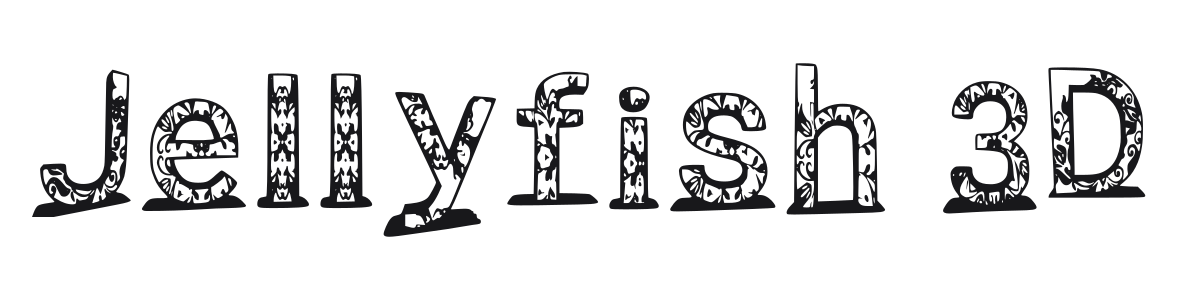
Jellyfish 3D
Jellyfish 3D is a chunky, heavily decorated display font where every letter is filled with swirling organic patterns reminiscent of jellyfish tentacles and sea life. A bold 3D drop-shadow extrusion gives each character real visual weight and depth. The combination of the dense interior texture and the extrusion makes it built for large-format use where all that detail can breathe.